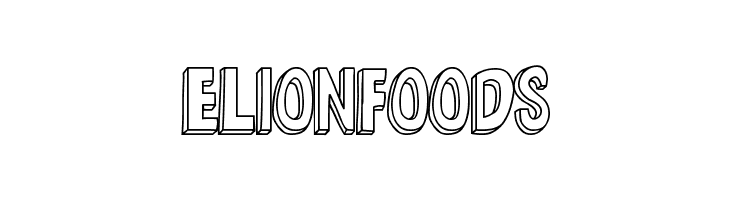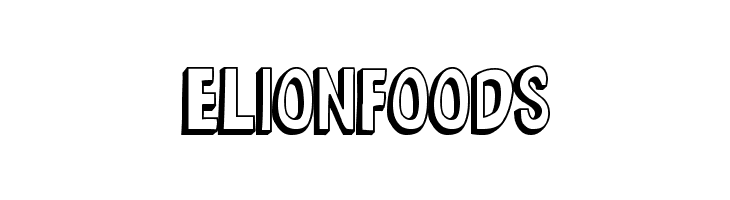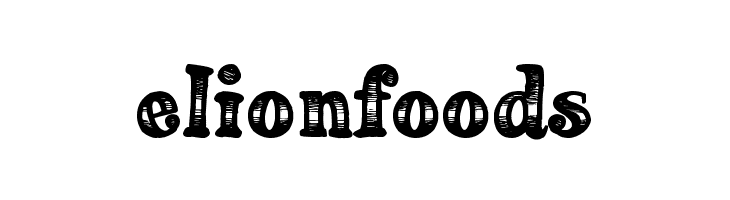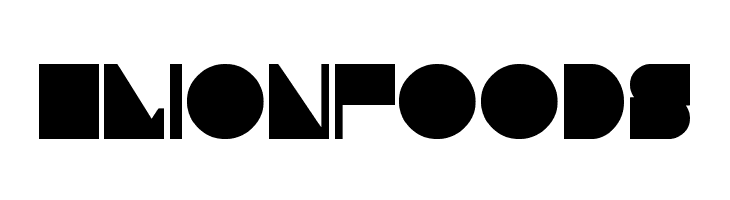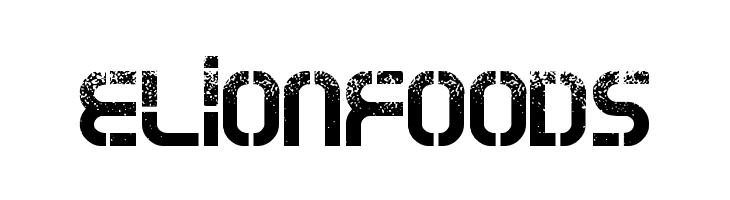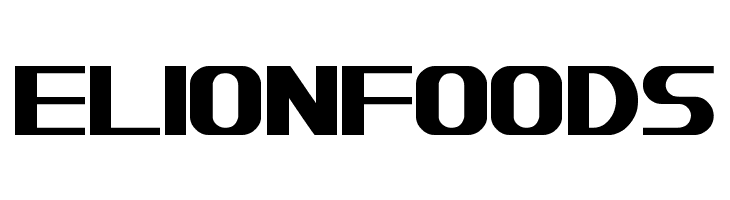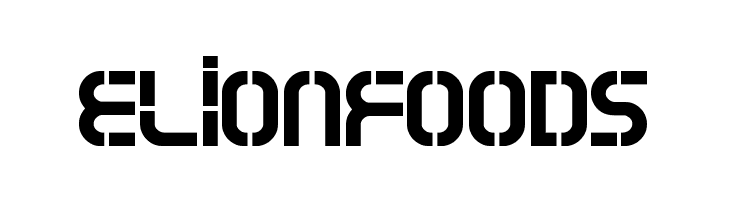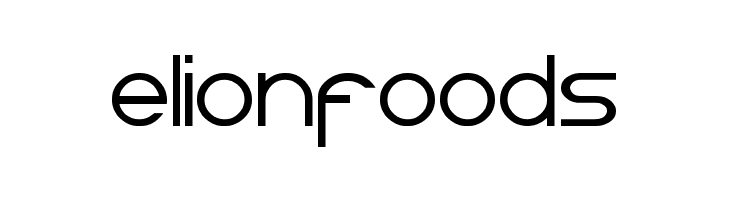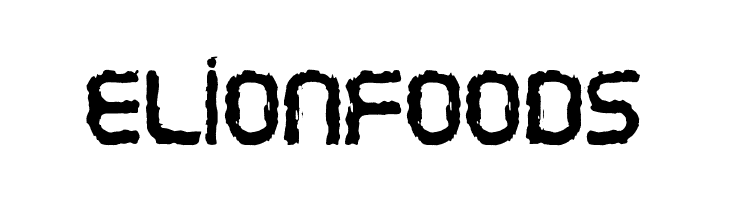
A bold, playful font with a 3D effect and comic book style.
A bold, outlined font with a playful, cartoonish style.
A bold, brush-style font with dynamic strokes and artistic flair.
A bold, decorative font with vintage flair and ornate embellishments.
A bold, geometric font with a futuristic, techno-inspired design.
A bold, distressed font with an industrial and rugged aesthetic.
A bold, geometric font with angular lines and a modern aesthetic.
A bold, geometric font with a military-inspired, stencil-like design.
A modern, geometric font with clean lines and rounded edges.
A bold, textured brush font with rugged, hand-painted strokes.